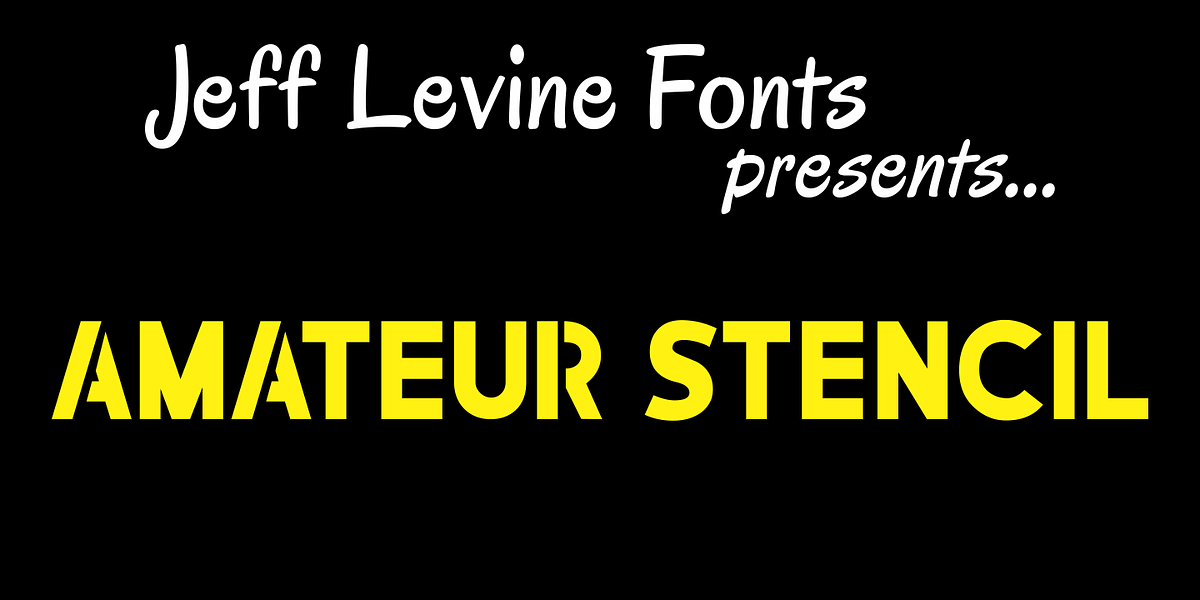
Amateur Stencil JNL
With all of the stencil fonts created by Jeff Levine from various vintage sources, you would think everything had already been covered. Not so. Along comes Amateur Stencil JNL. Modeled from a child’s stencil set from the late 1950’s or early 1960’s, it vaguely resembles Futura, but its irregular widths and semi-stencil appearance sets it off greatly from that classic typeface.